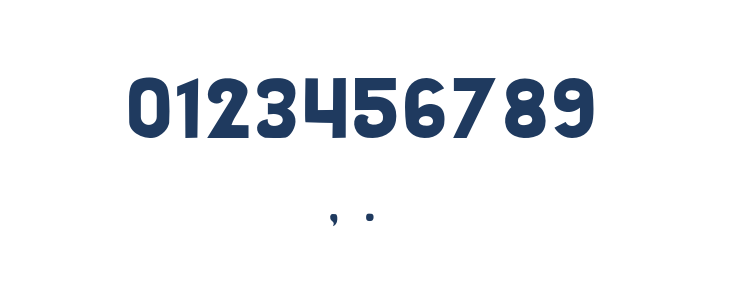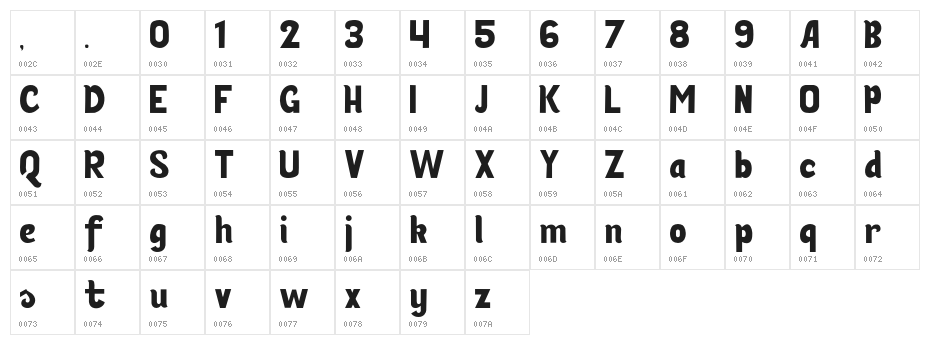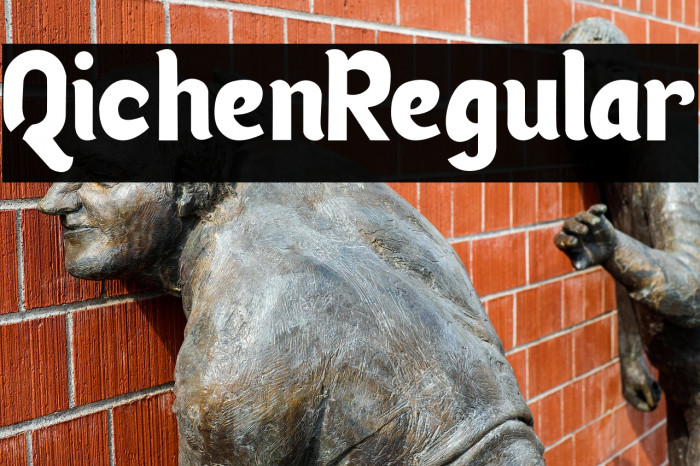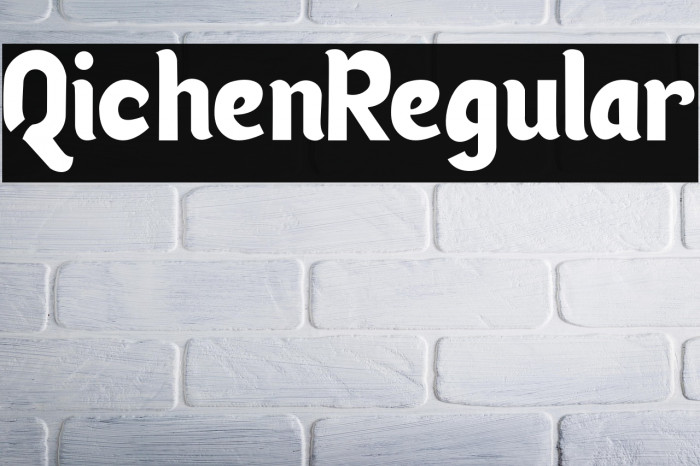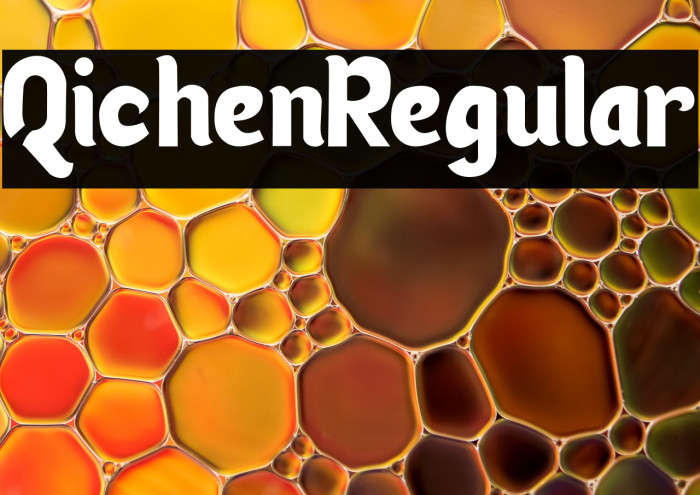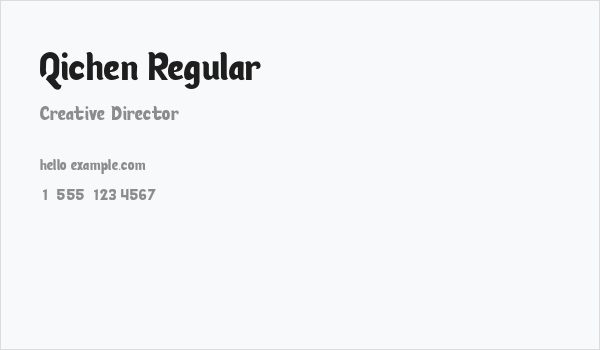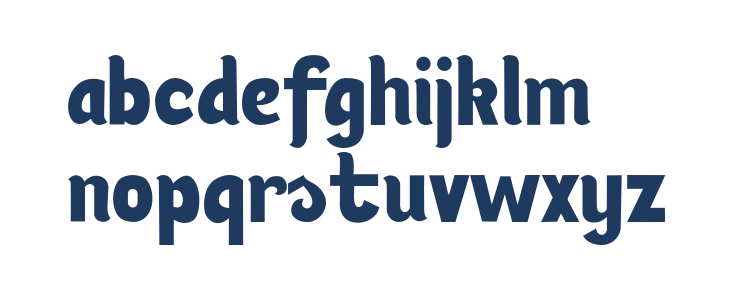
Qichen-Regular Font
Qichen-Regular Description
This font features a bold and playful design with a unique blend of geometric and organic shapes. The uppercase letters are characterized by their strong, block-like appearance, while the lowercase letters introduce a more whimsical and rounded style. The numbers maintain the boldness of the uppercase letters, ensuring consistency across all characters. The font's overall design is both modern and slightly retro, making it versatile for various creative applications. The special characters are designed to complement the alphabet, maintaining the same bold and playful aesthetic.
| Overall Style | Modern, Retro |
| Proposed Projects | Ideal for branding, posters, children's books, and playful graphic designs. |